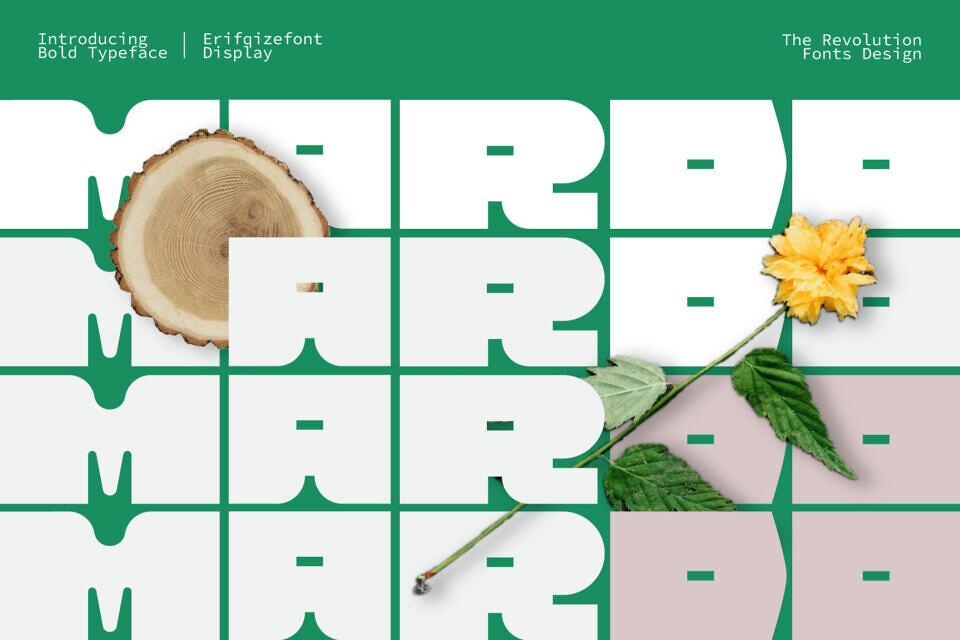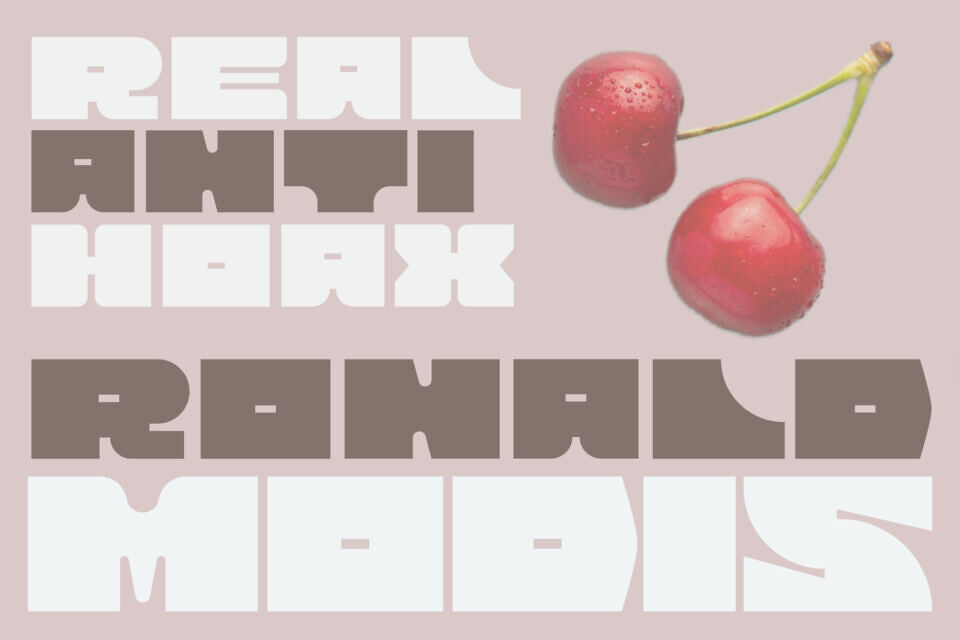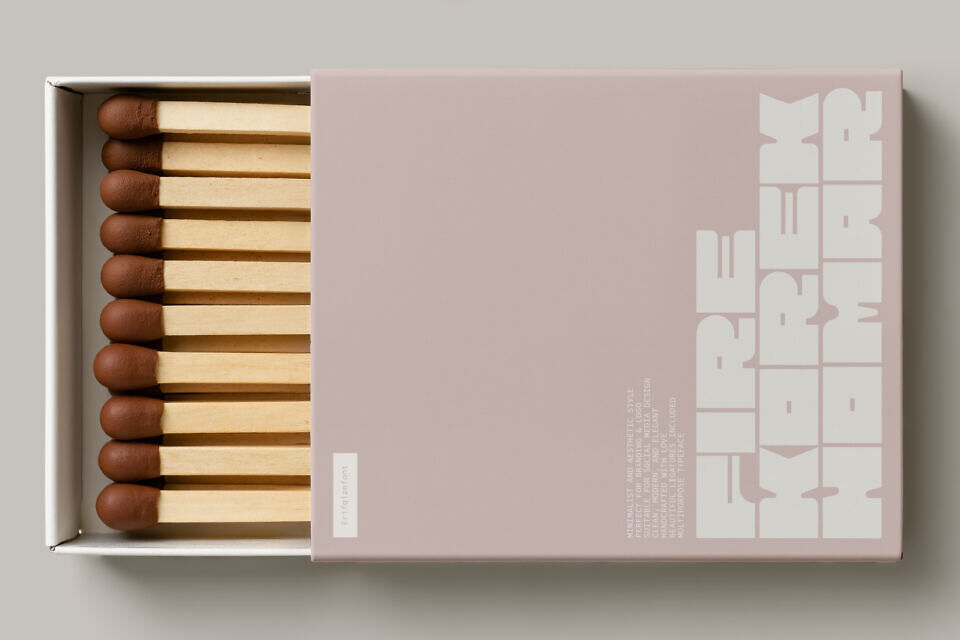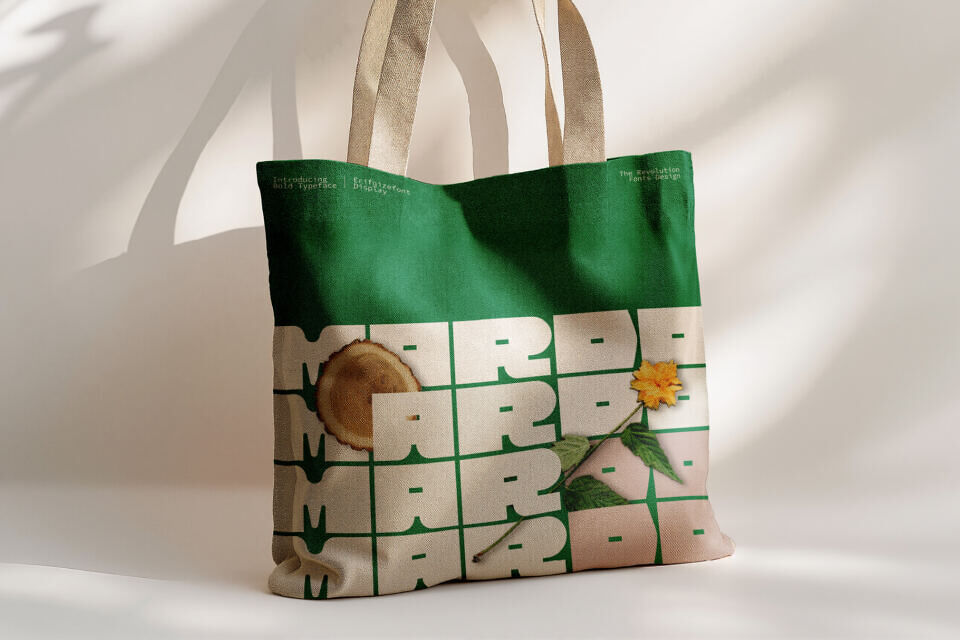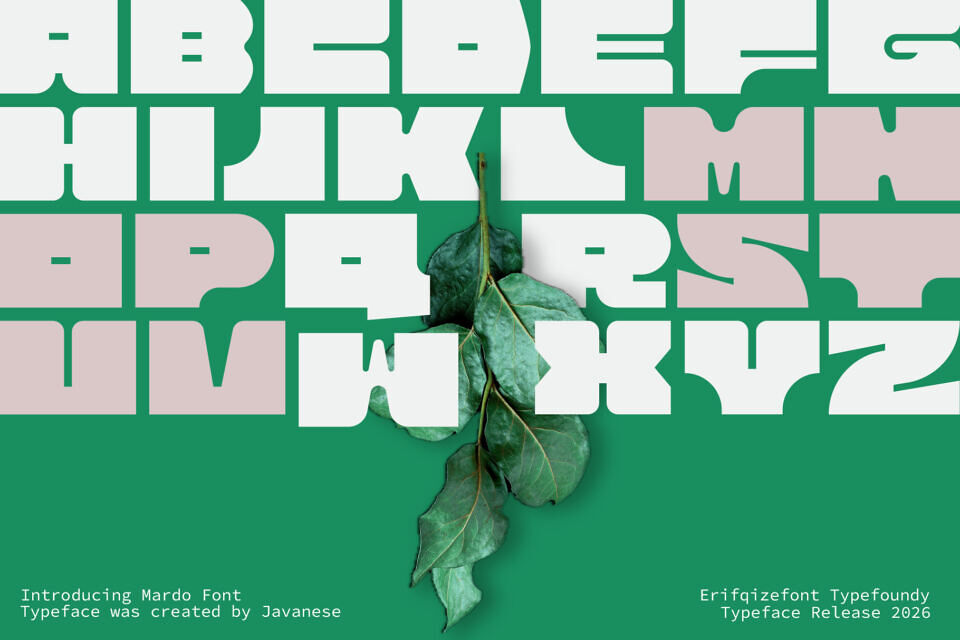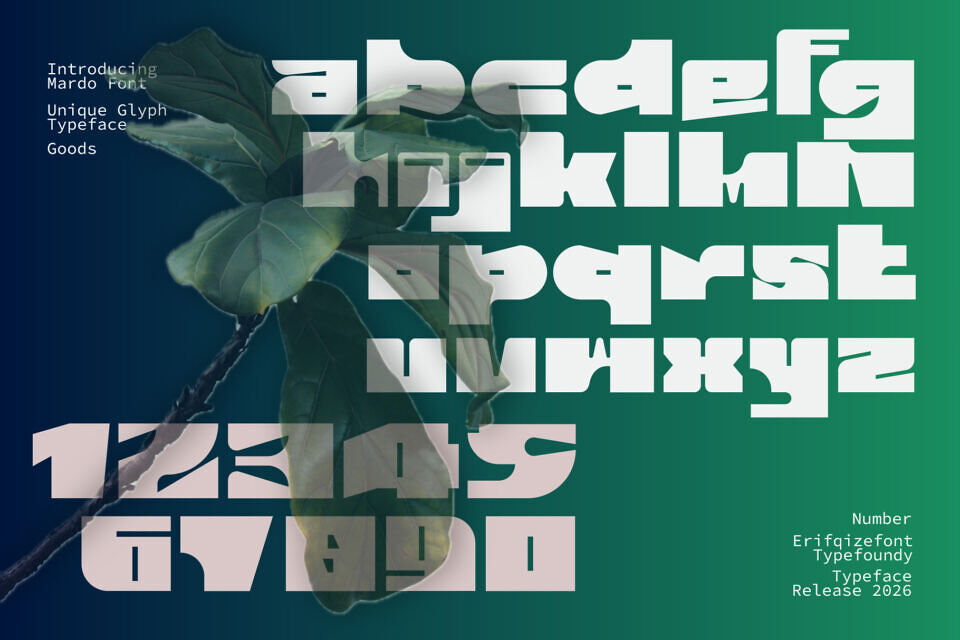
MARDO is a bold display typeface with a strong geometric structure and playful personality. Designed with thick letterforms and unique cut details, MARDO delivers a modern yet organic feel—perfect for eye-catching headlines, branding, posters, and creative layouts.